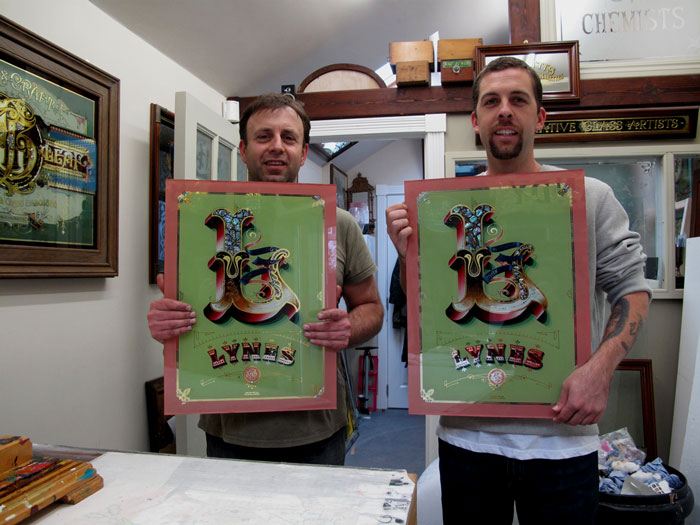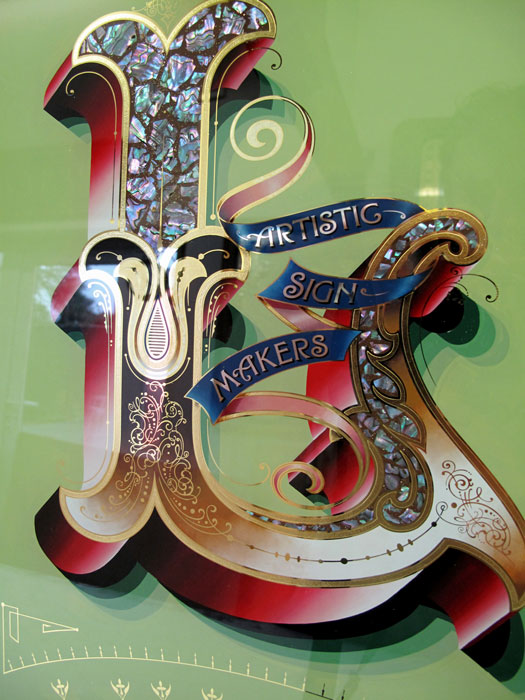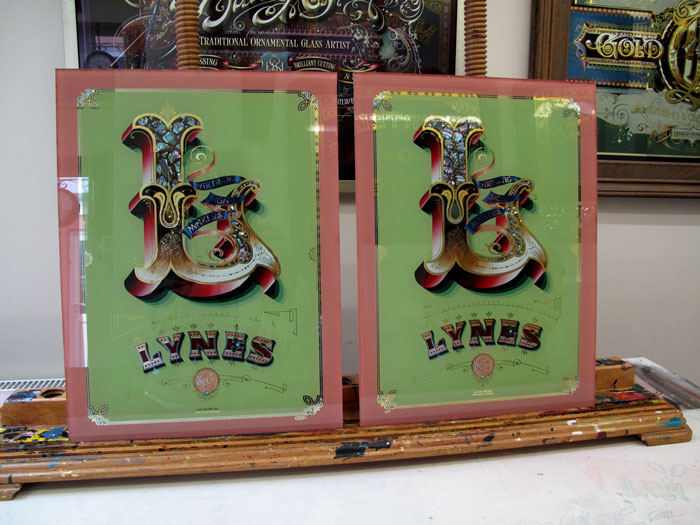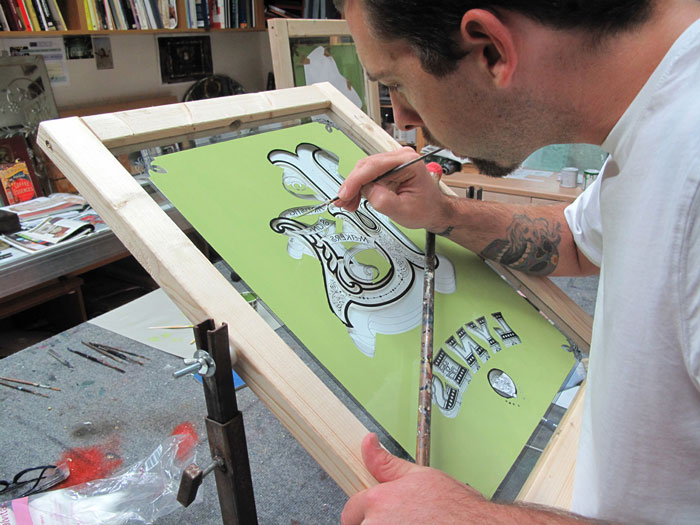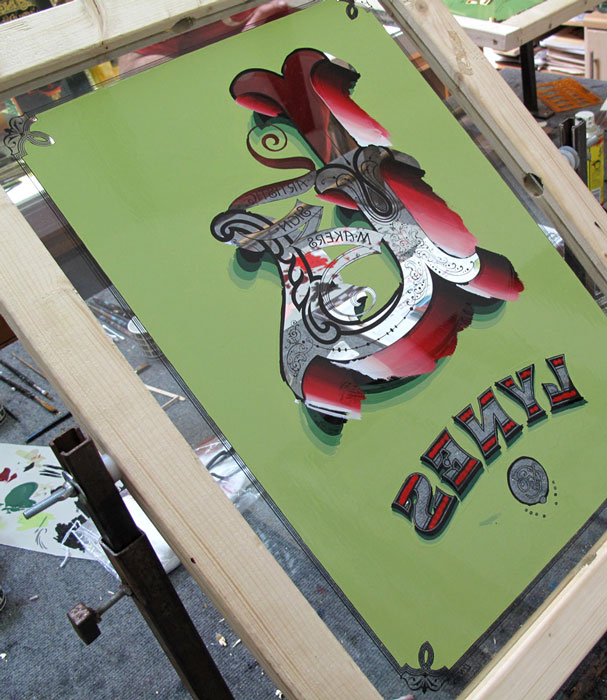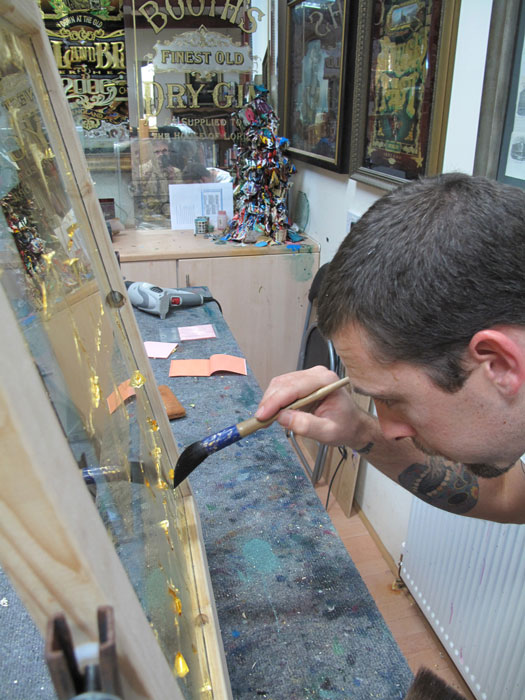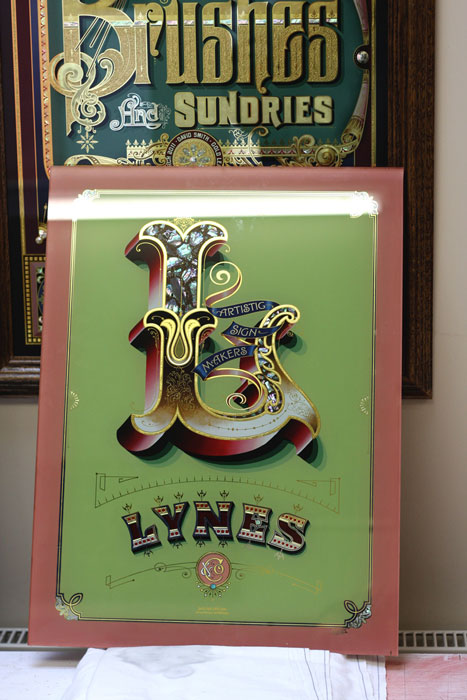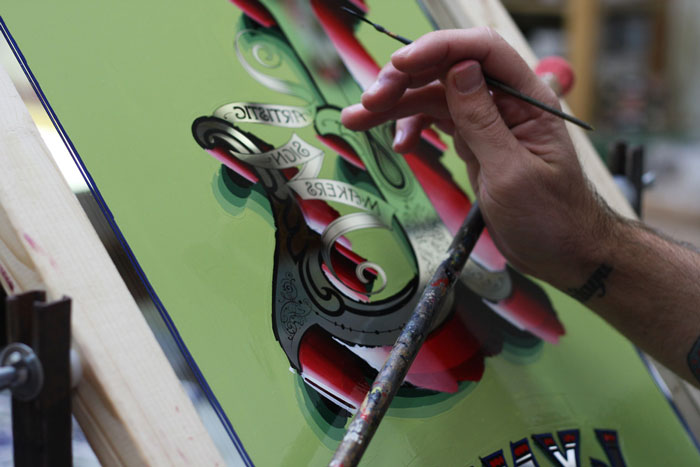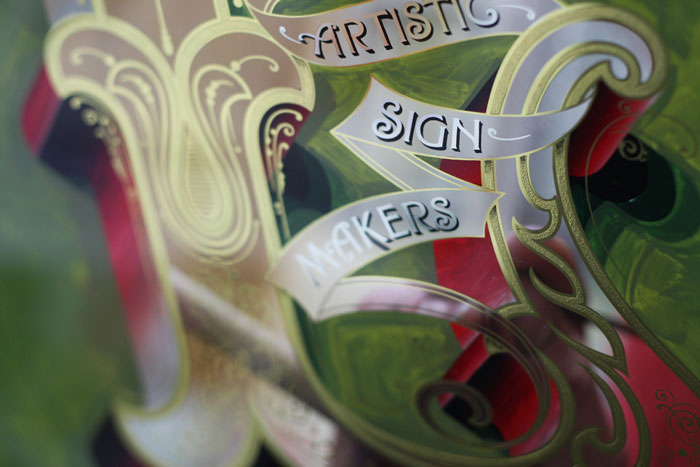
Hi. Here are a few pictures of a gilding workshop we had this last week with a very talented signwriter from Sydney, Australia. Will Lynes spent the week here in Torquay creating some lovely panels of glass. I designed this one panel with his name on and also some smaller panels of artwork that were sent to me from Marilyn Glawson of Rick's bottle design. These were a last minute idea to see if we could make them in around a day but not quite got them finished. At the base of the bottle we placed in some text that read In memory of Rick Glawson. I taught Will to make his own Silver for chemical deposition along with some glue chipping. We had a great week sharing the knowledge of sign art. My next trip will be to Sydney to see Will's work around his town. Good to meet you Will.
Another great piece. and even better because (I think) working next to someone else you were able to take lots of pictures of the process. How nice for us.
So (dialect question) - is this what a "box shade" can be when it grows up?
I guess it could be Lee, various ways to go with these shades as you know. It was a good workshop, Will's a very good signwriter.